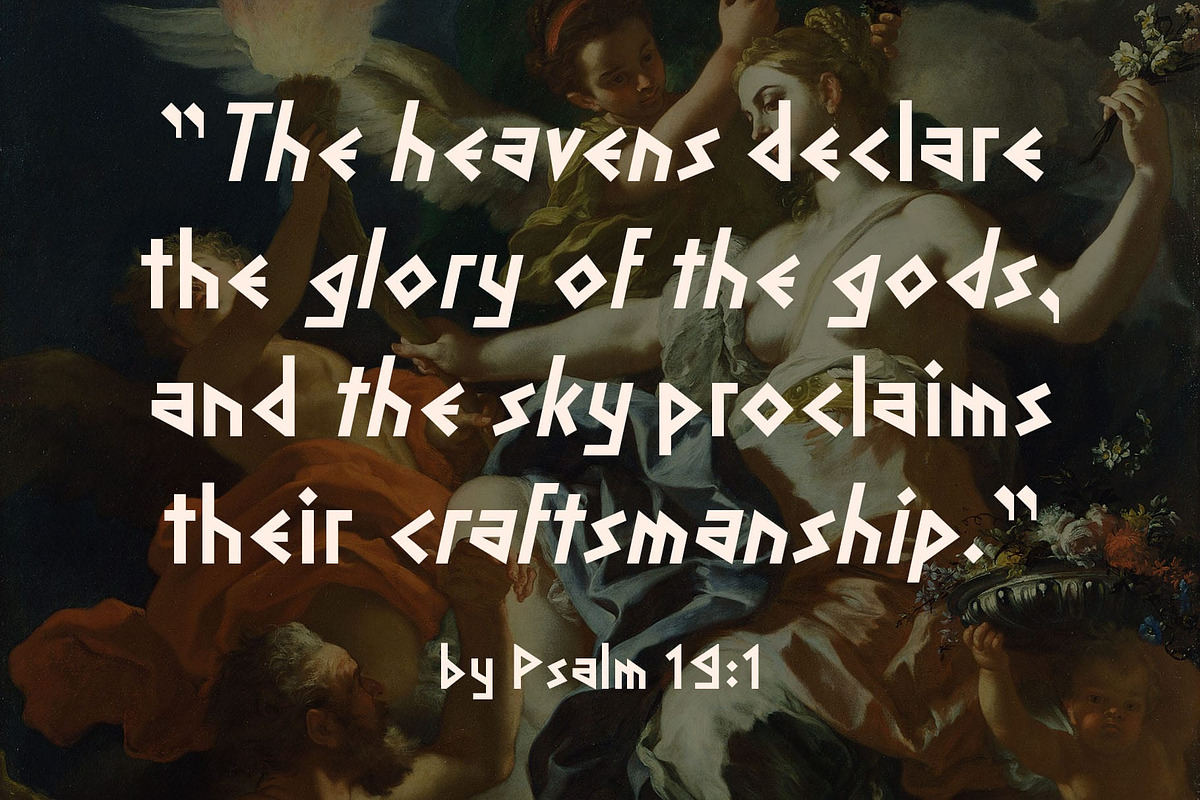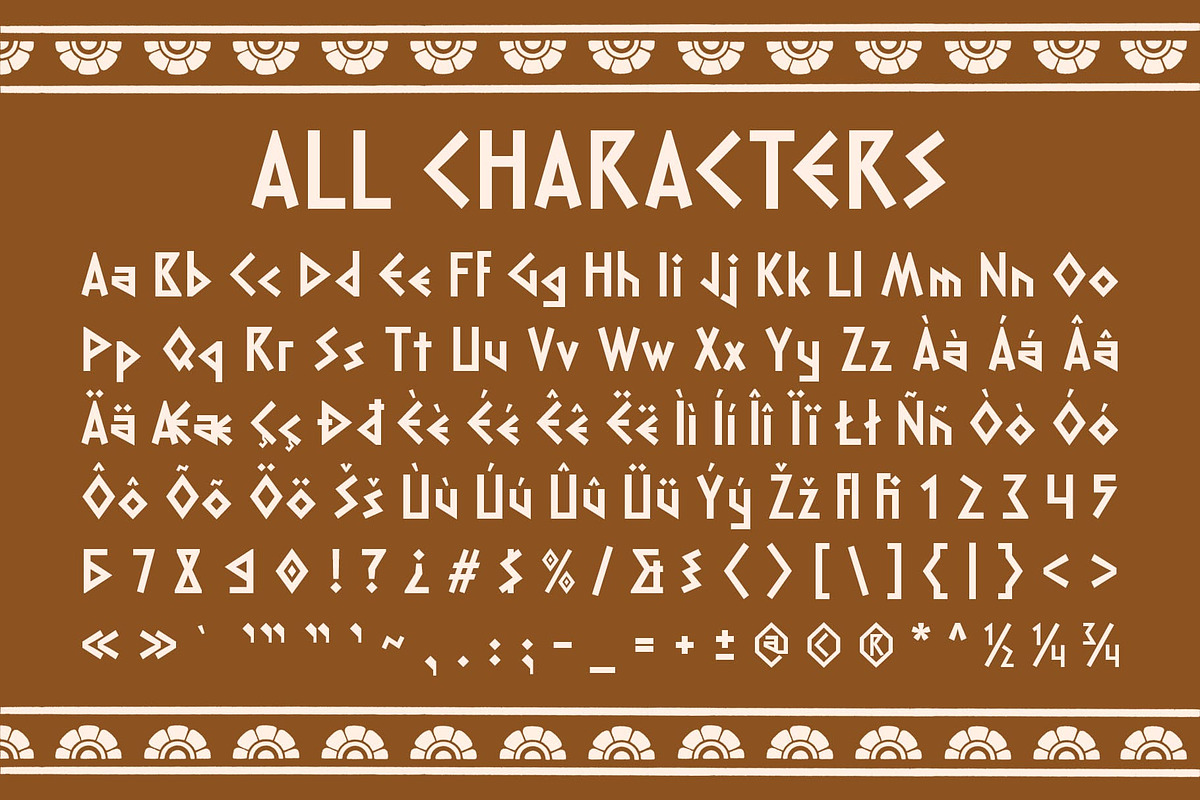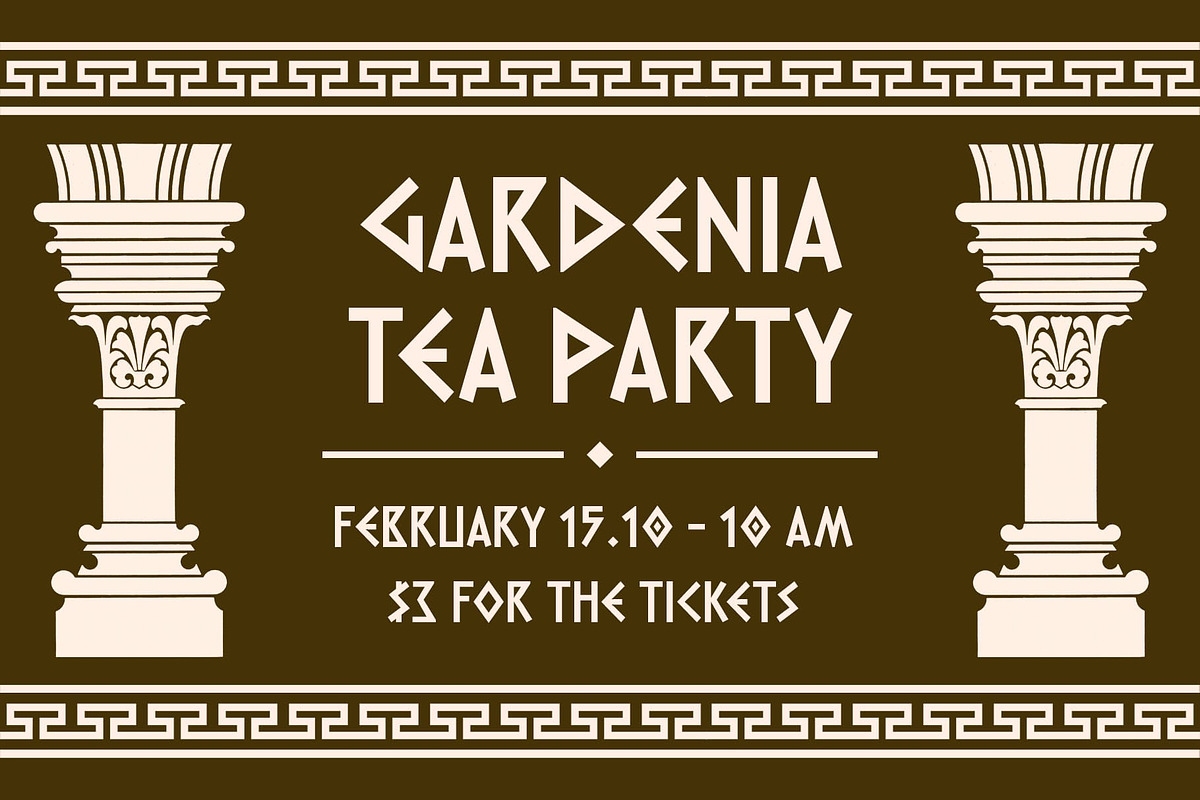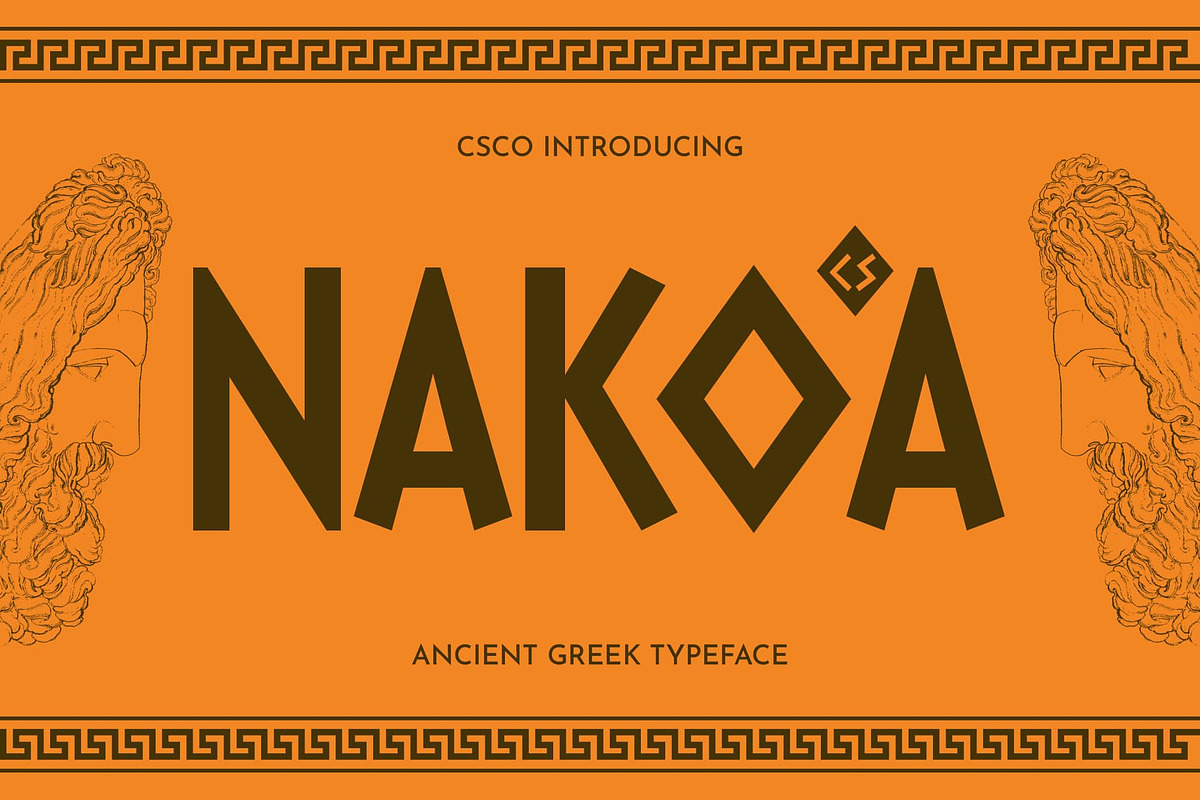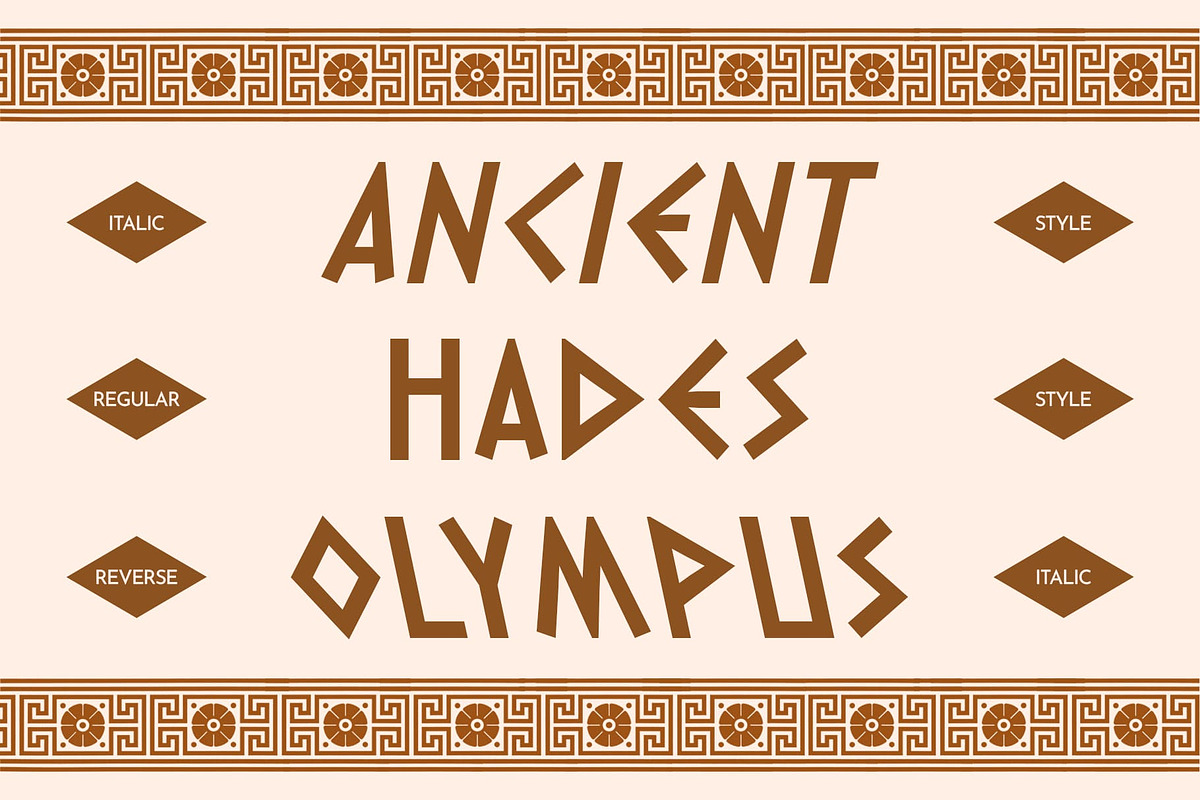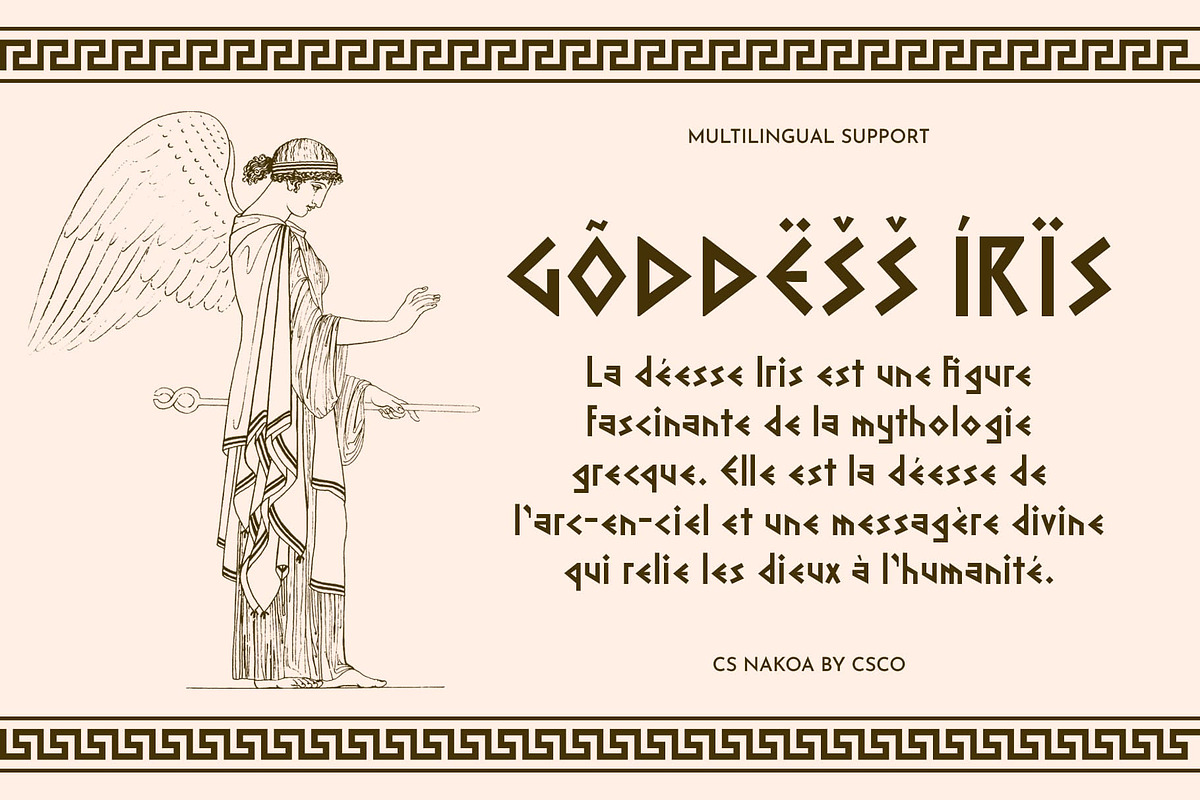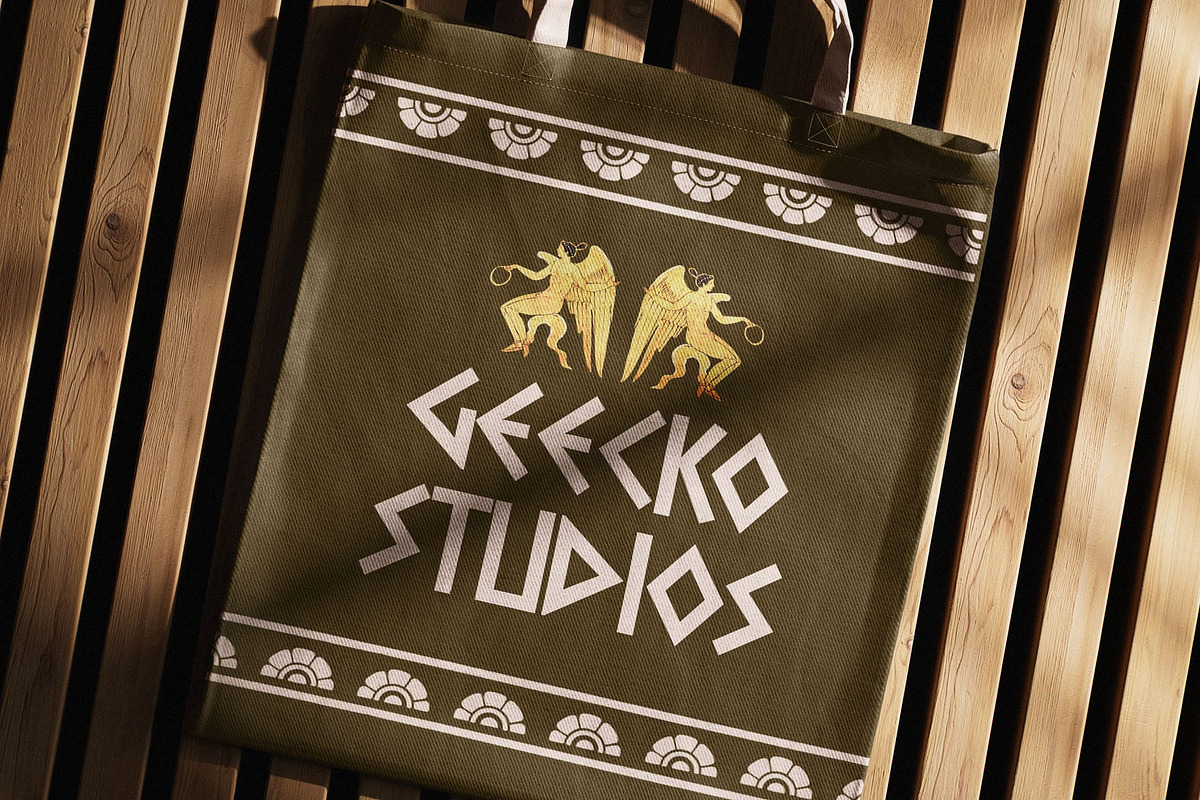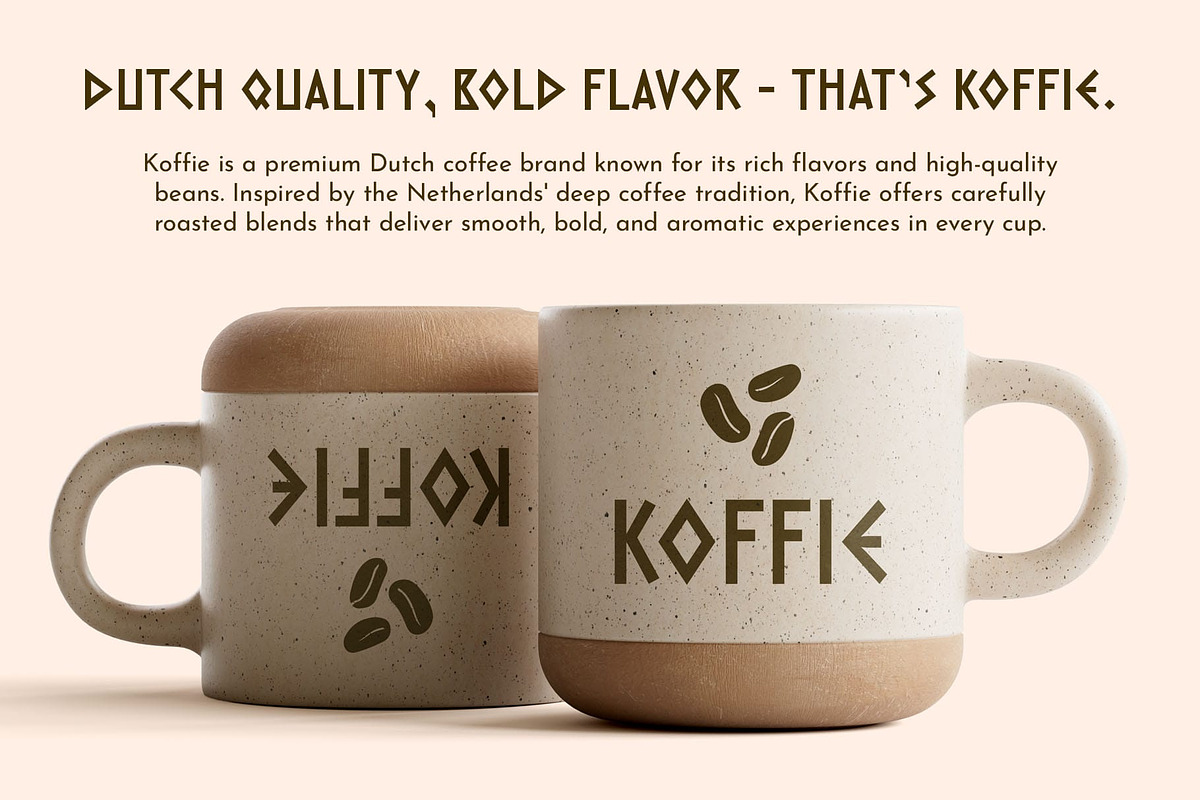
CS Nakoa – Ancient Greek Font
CS Nakoa – A Timeless Ancient Greek Font
Inspired by Classical Inscriptions & Mythological Elegance CS Nakoa is a modern display sans serif font influenced by the grandeur of Ancient Greek inscriptions, blending historical authenticity with a contemporary touch. Its geometric letterforms, sharp serifs, and subtle decorative details reflect the strength, wisdom, and heroism of classical Greek culture. With its elegant yet bold structure, this font is perfect for designs that seek to capture the spirit of mythology, philosophy, and ancient artistry.
Perfect for Historical & Epic Designs Designed for historical, cultural, and fantasy-themed projects, CS Nakoa is an excellent choice for museum exhibits, book covers, film posters, branding, and editorial layouts inspired by ancient civilizations and heroic legends. Its strong and refined character makes it ideal for designs that require a majestic, noble, and mythological aesthetic.
A Font That Echoes the Glory of the Past Whether you’re working on epic storytelling, historical branding, or grand visual identities, CS Nakoa delivers a timeless elegance that connects the past with the present. Let your designs evoke the rich legacy of Ancient Greece with a font that embodies power, knowledge, and artistic excellence.